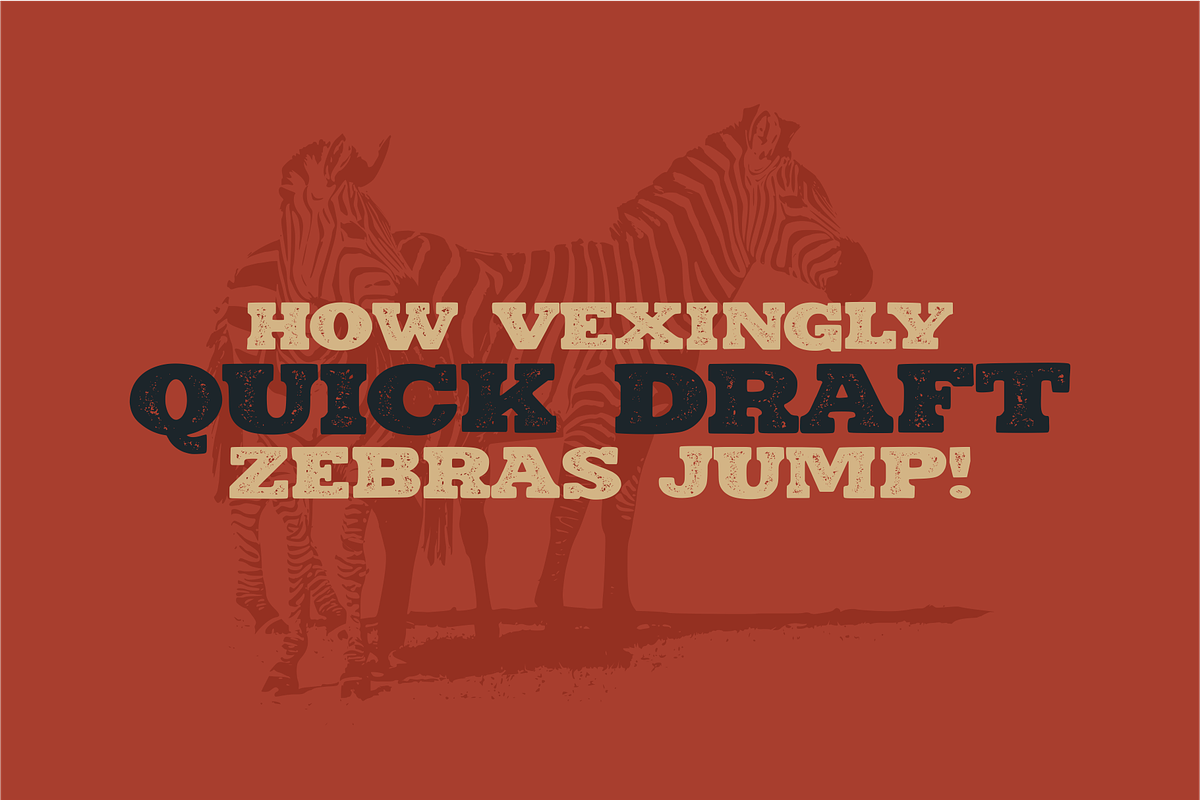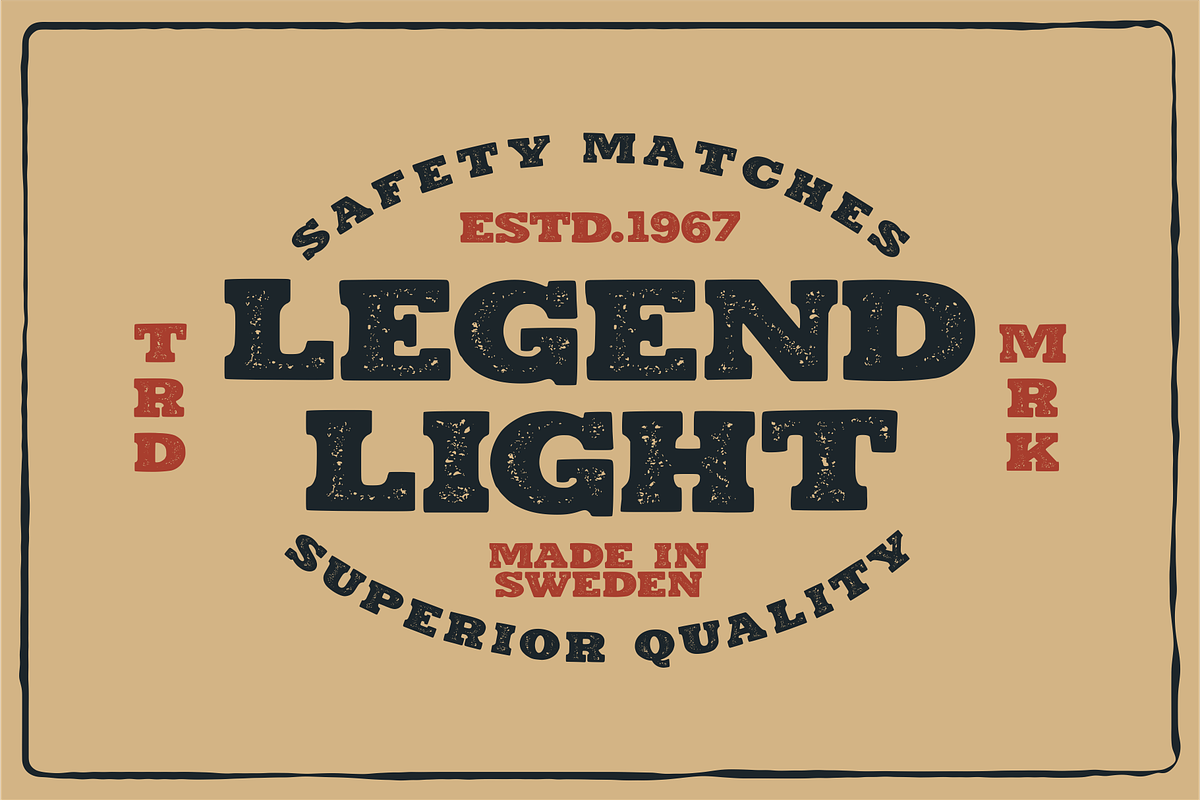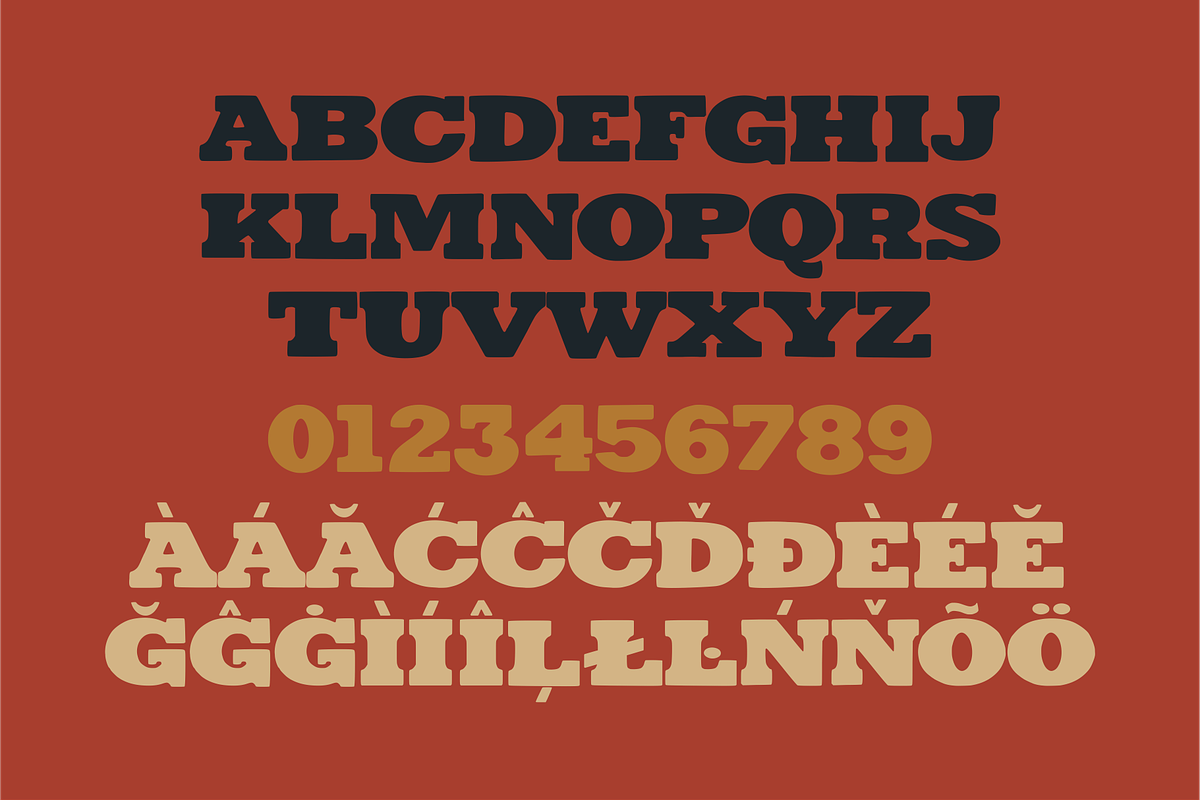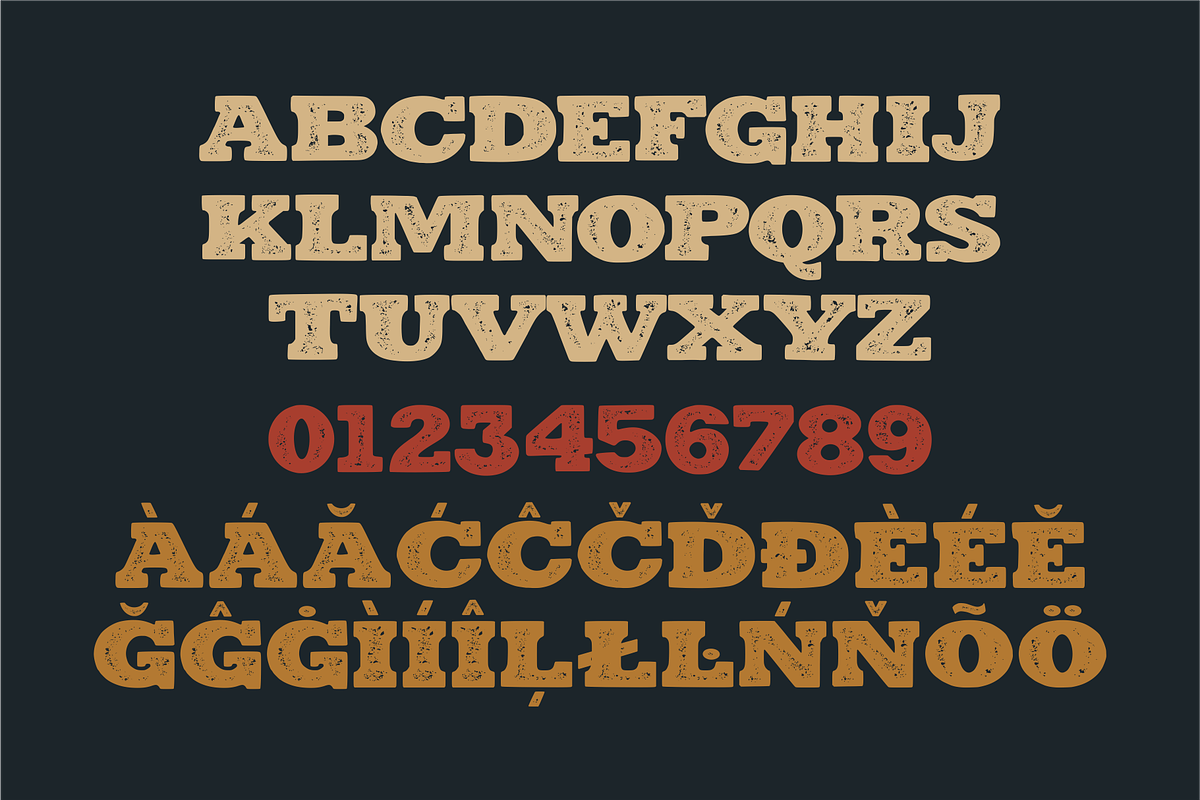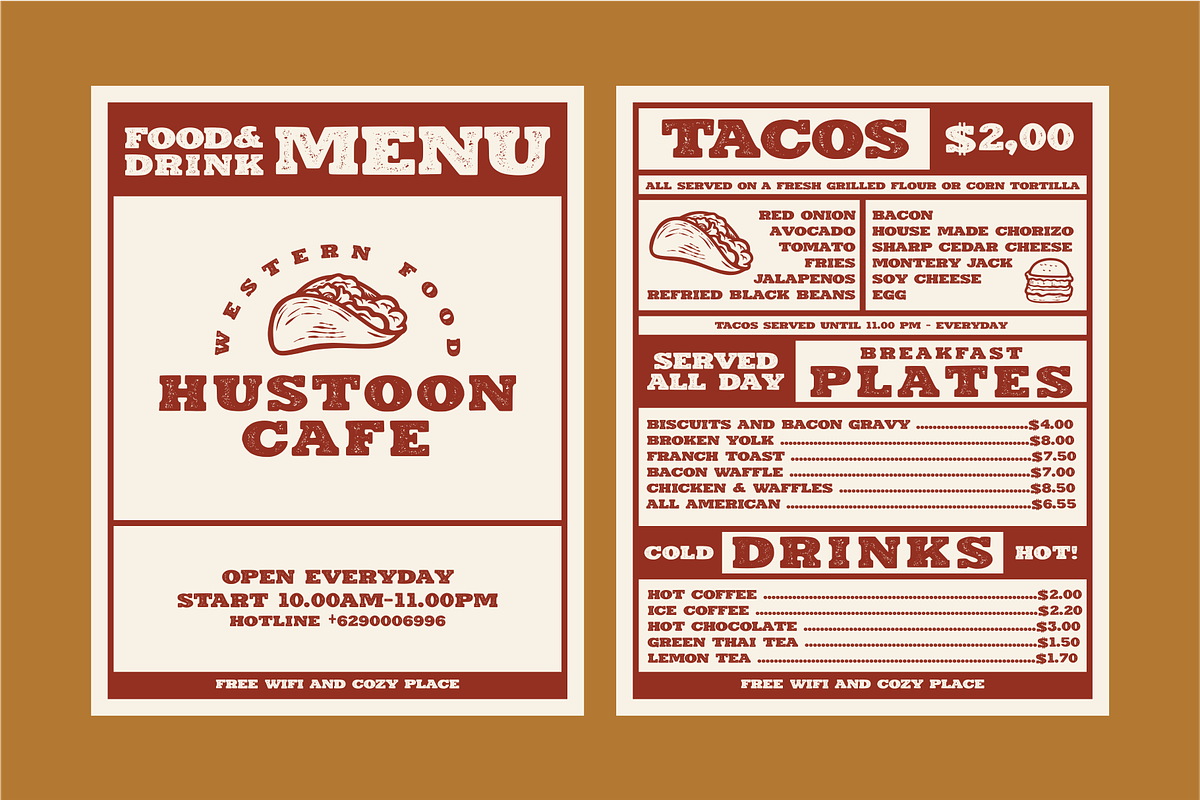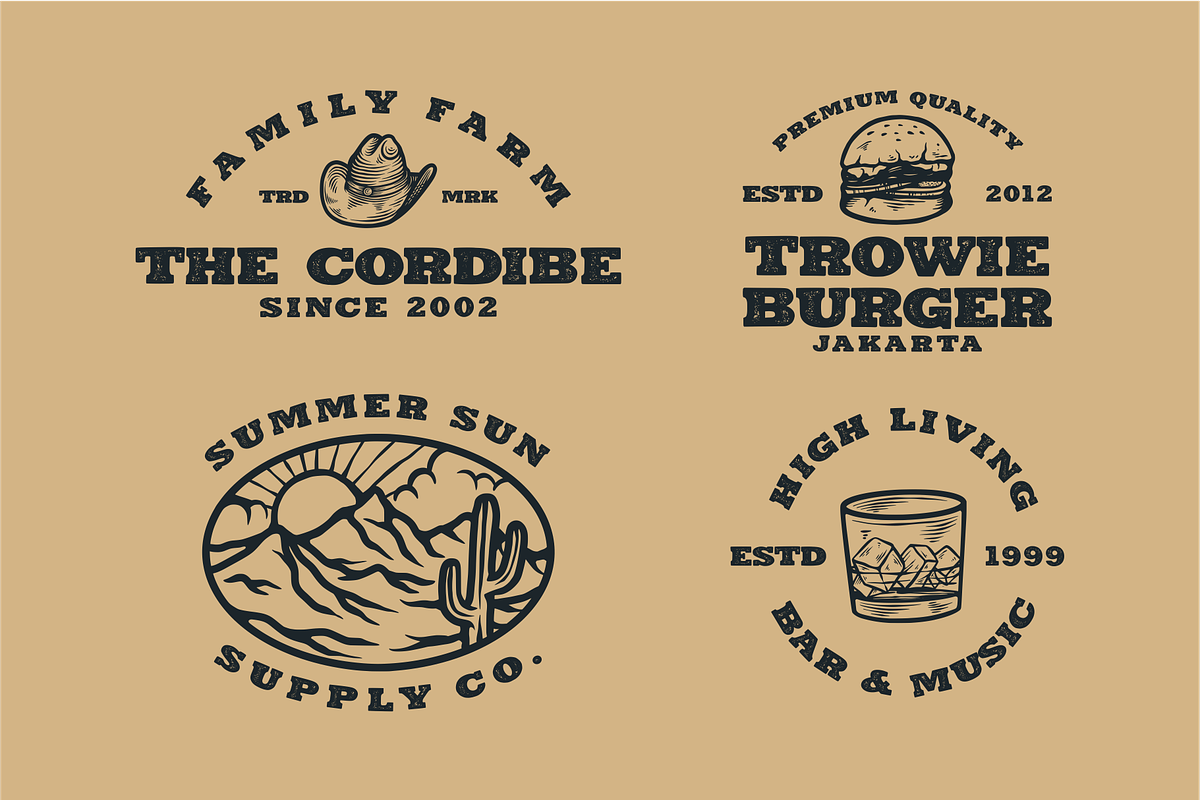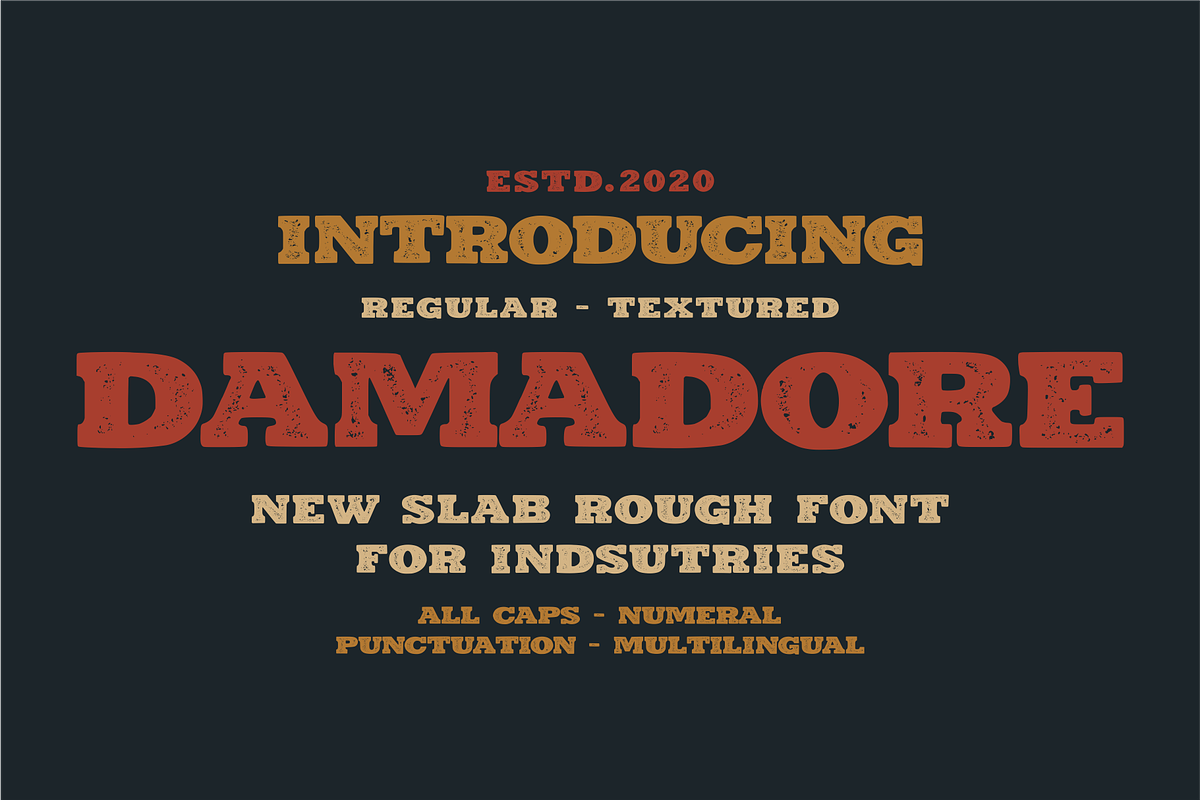
DAMADORE TYPEFACE
Presenting Damadore is a Slab Serif Typeface type font with a strong, bold and bold appearance. This font is made with hand letters so that it feels vintage, classic and rustic. Made in two Regular versions and textured suitable to be applied in any design format such as invitations, labels, logos, magazines, books, greeting / wedding cards, packaging, fashion, apparel, merchandise, stationery, novels, labels or any type of advertising purpose.
- Feature:
- Number,
- All Caps,
- Punctuation,
- Multilingual Support,